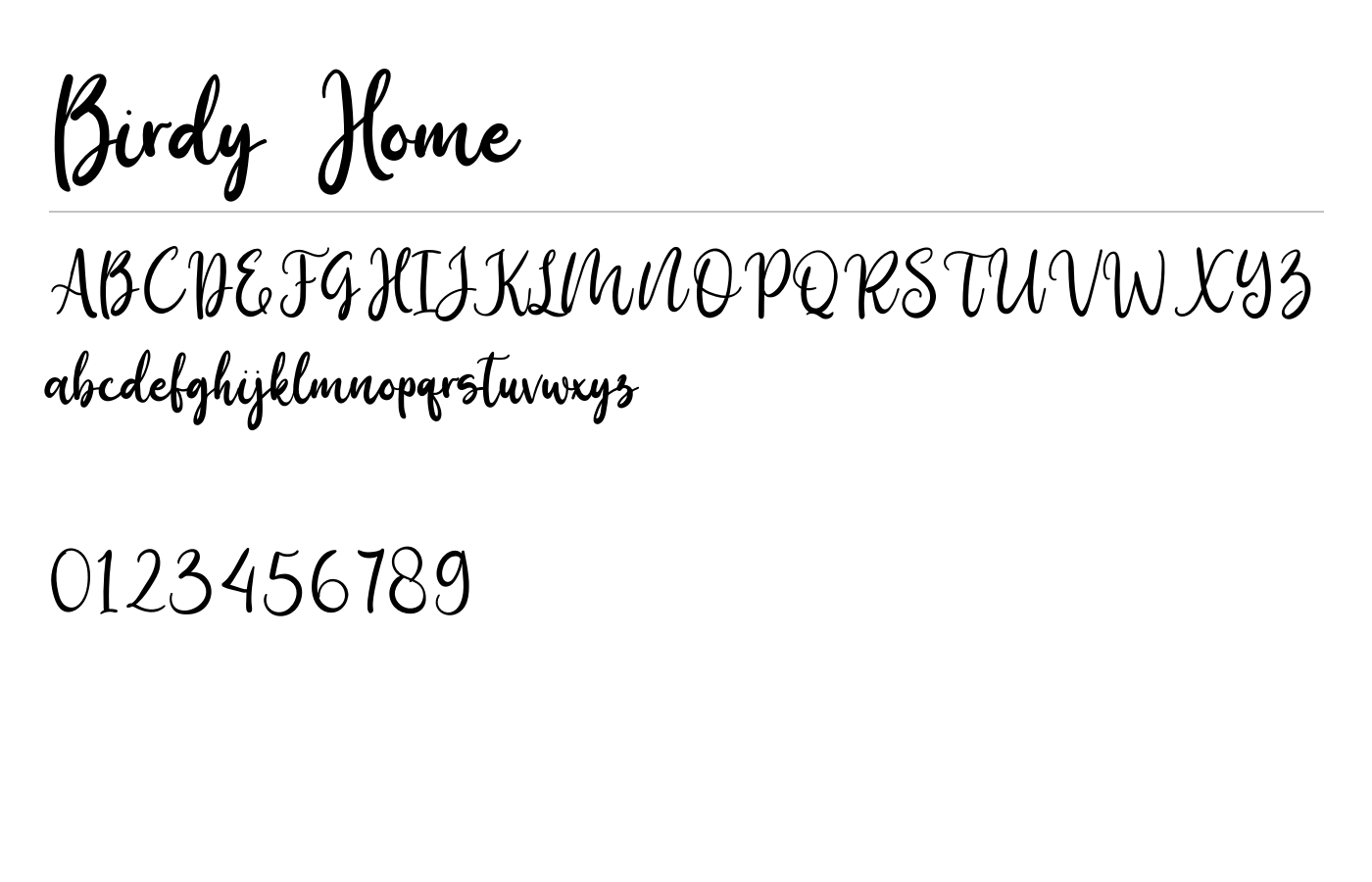
Birdy Home is a playful and elegant script font with a natural, handwritten feel. Its smooth, flowing strokes and moderate contrast give it a friendly and approachable personality, making it ideal for creative branding, invitations, and lifestyle projects. This font works beautifully in both headlines and short text where a warm, personal touch is desired.
Birdy Home Font
About Birdy Home Font
| Designer | Risca Anitawati |